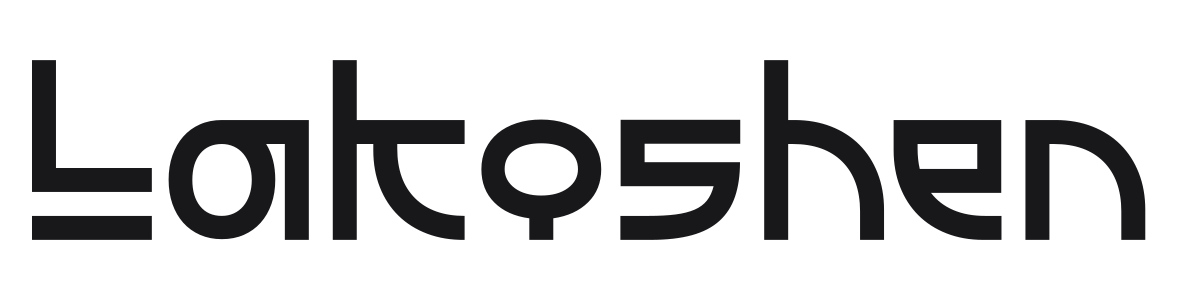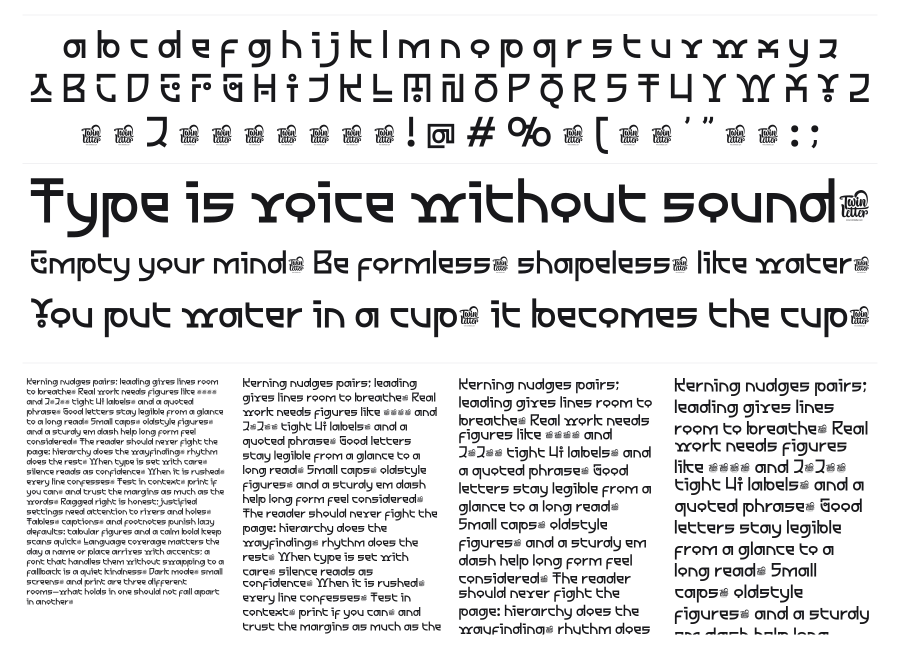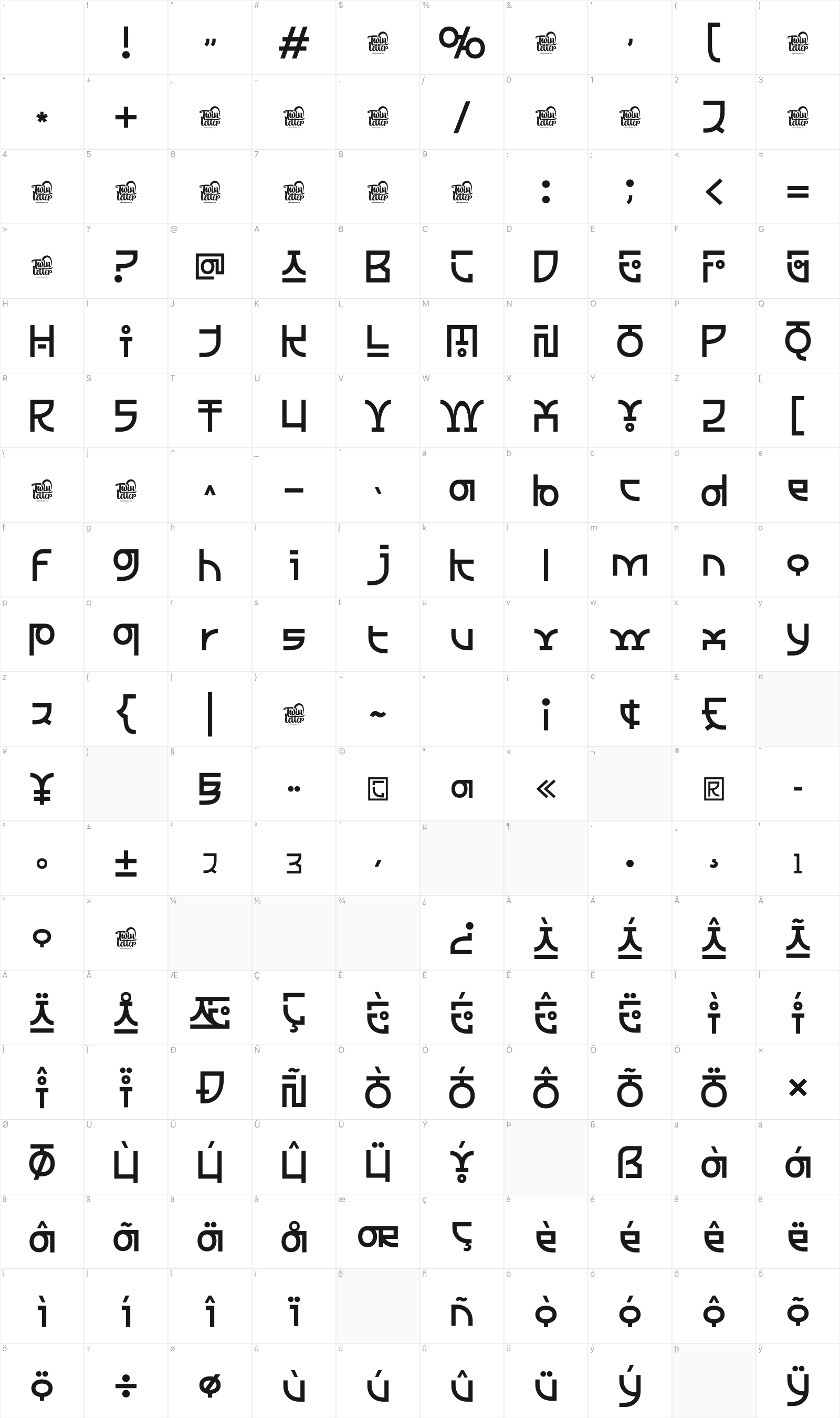
Lakoshen
Lakoshen is a Latin display font built around the structural logic of Korean Hangul, rearchitecting familiar letters into grid-based compartments with internal cutouts and angular interruptions. The result is a monoweight bold that feels simultaneously futuristic and East Asian in character, without borrowing actual Hangul glyphs. It works best large, where the geometric quirks read as intentional and expressive.